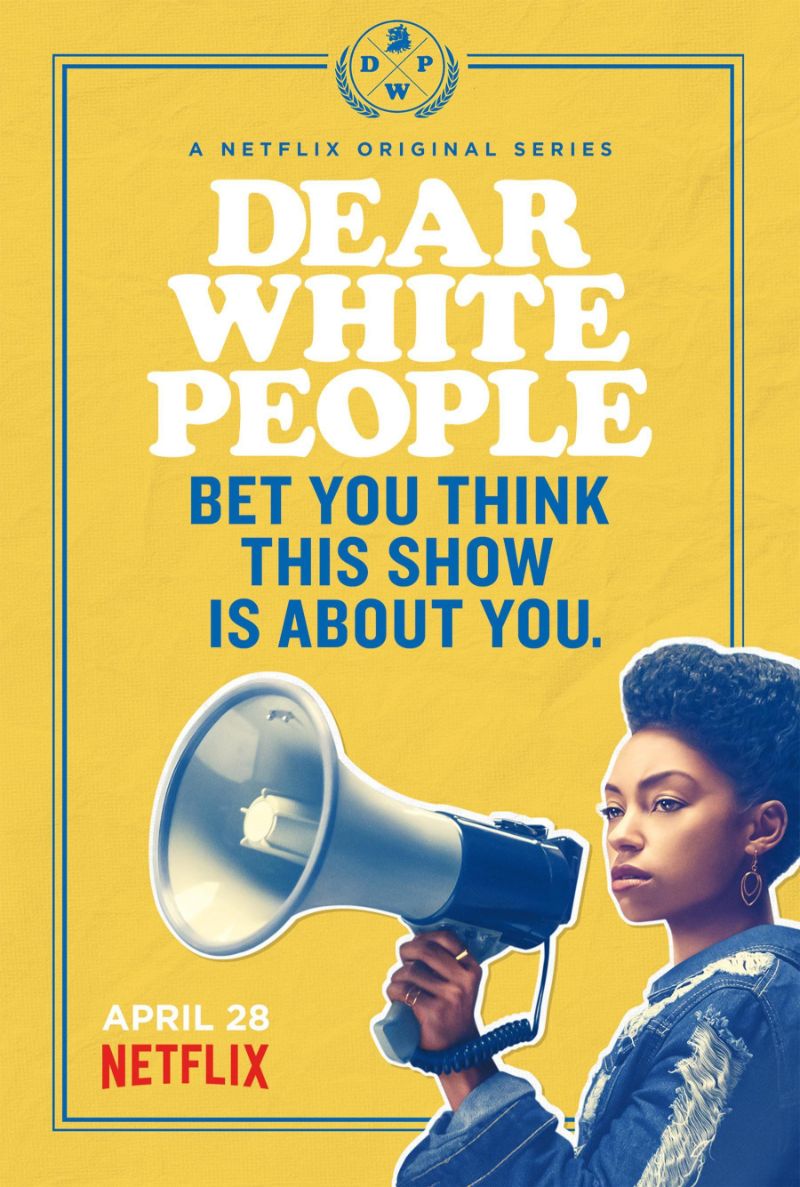
Dear White People Font
ComedyDear White People is a Netflix original television series that first premiered in 2017. It is a satirical comedy-drama that explores the experiences of Black students at a predominantly white Ivy League University.
The Dear White People title on the series poster uses a serif font called Cooper Black designed by Oswald Bruce Cooper in 1922. There is a free alternative for Cooper Black known as Cooper Black Five that is available for download in the Fonts Used Section.